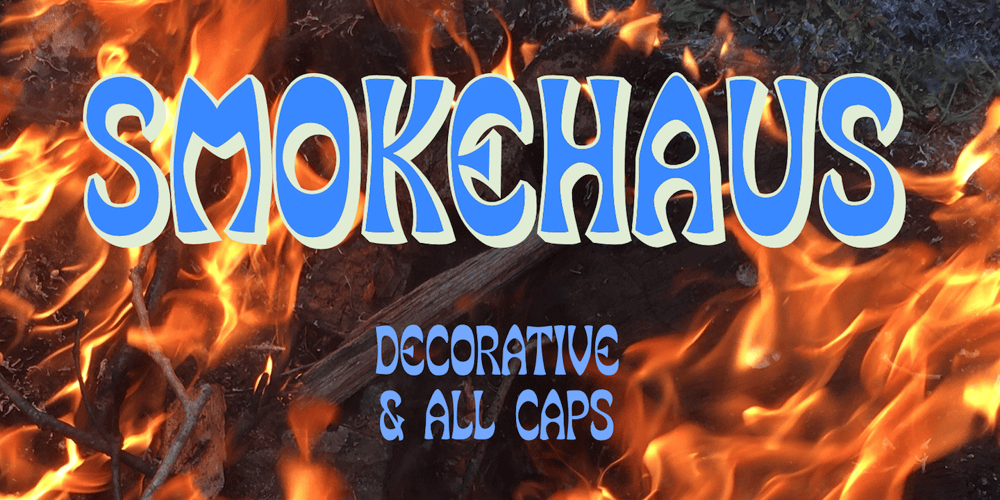
SmokeHaus Font Family was designed by Robert Schenk and published by Ingrimayne Type. SmokeHaus contains 6 styles and family package options. SmokeHaus is a caps-only, reverse-contrast display typeface with flare serifs and bold, rounded letters. In addition to the plain style, the family has shadowed, cracked, and two rough or dimpled versions. It was inspired by a sign on a smoke house in Gustavus, Alaska. The SmokeHausShadowInside style was developed to be used in layers with SmokeHausShadow. It allows lettering with two colors. Also, SmokeHausCracked can be used in a layer above SmokeHaus.